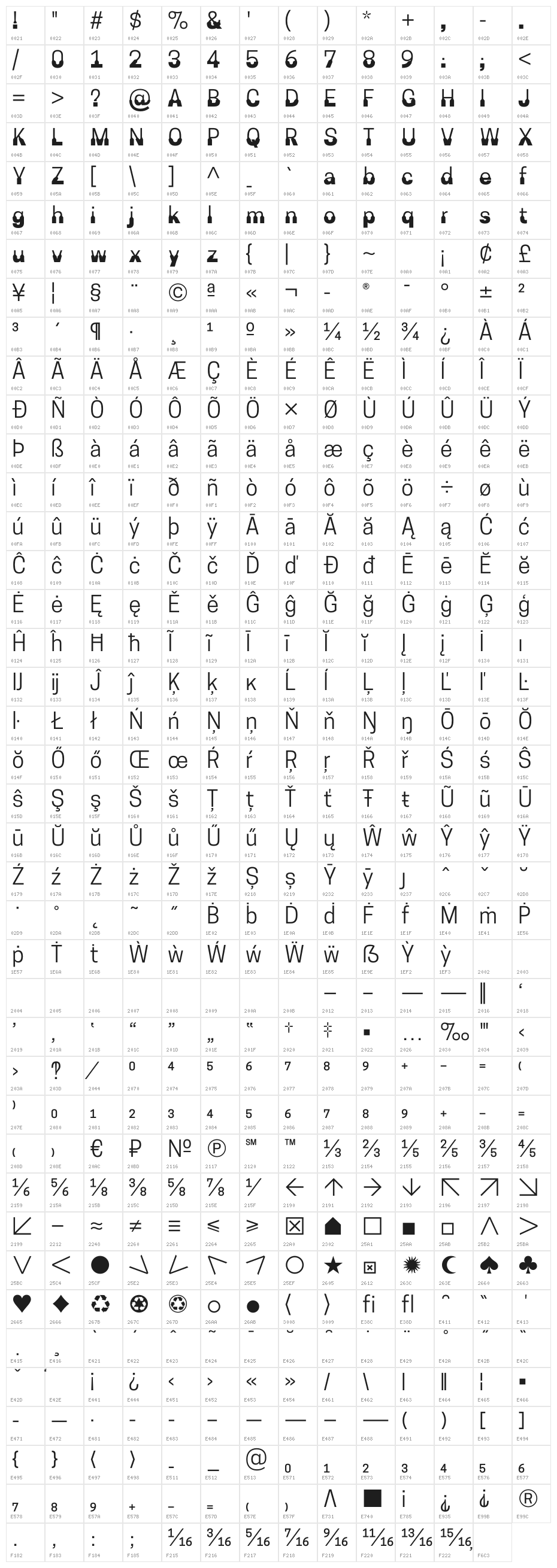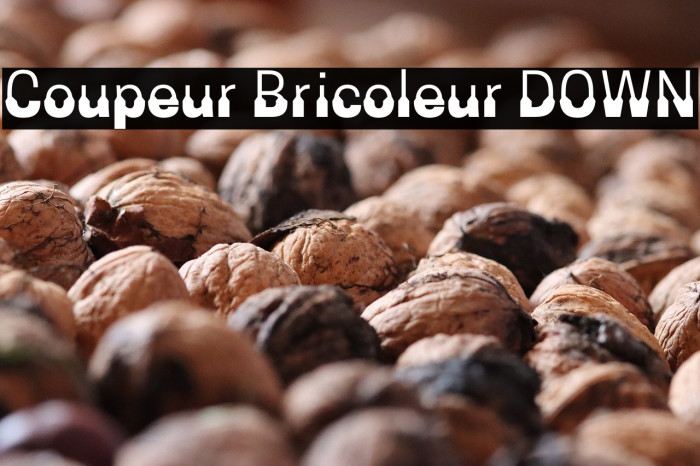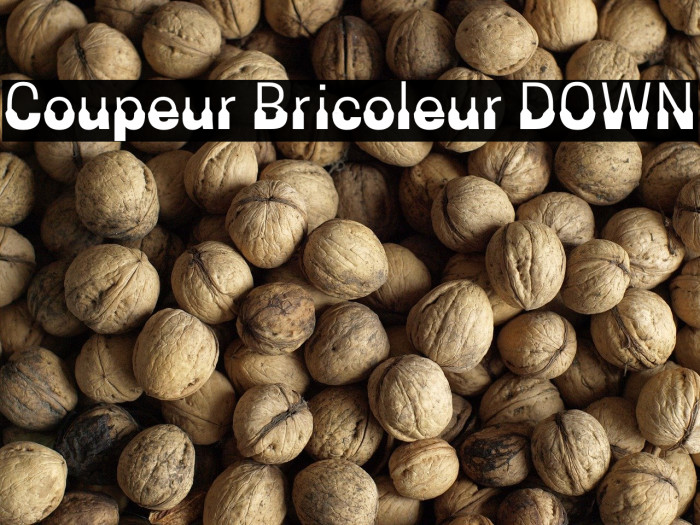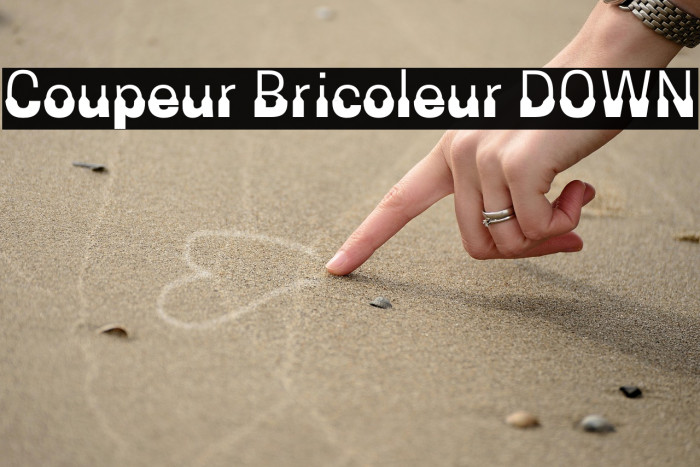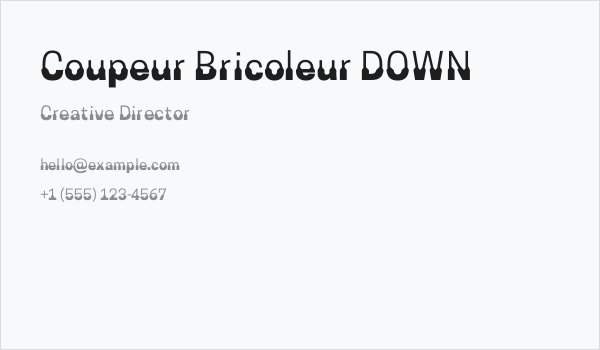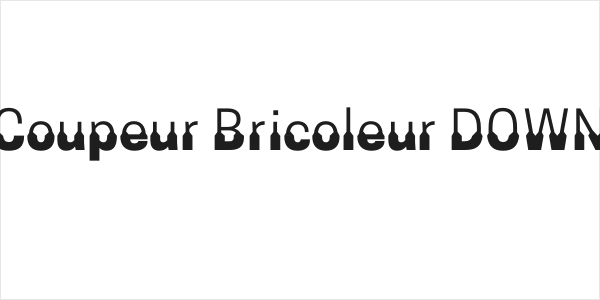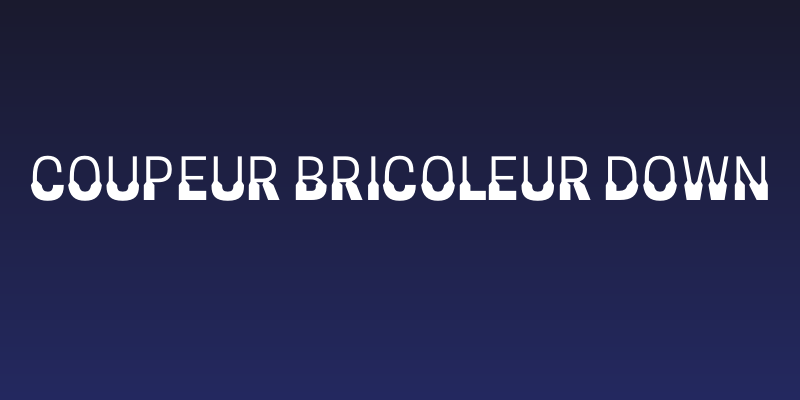
Coupeur Bricoleur DOWN Font
Coupeur Bricoleur DOWN Description
This font features a bold and striking design with a modern twist. The uppercase letters are characterized by strong geometric shapes and sharp angles, giving them a distinctive and edgy appearance. The lowercase letters maintain a similar style, with consistent stroke widths and a unique blend of curves and straight lines. The numerals are bold and easily readable, complementing the overall aesthetic. Special characters are creatively designed, adding to the font's versatility. The font's unique style makes it suitable for a variety of creative projects.